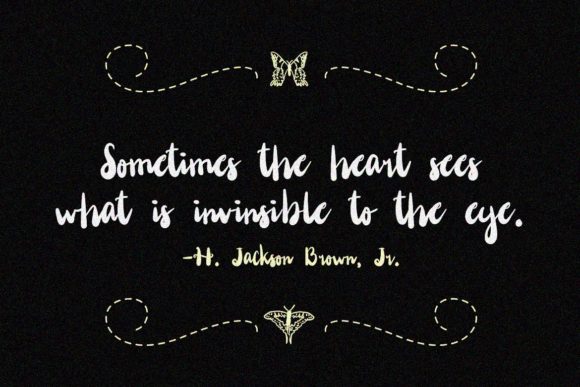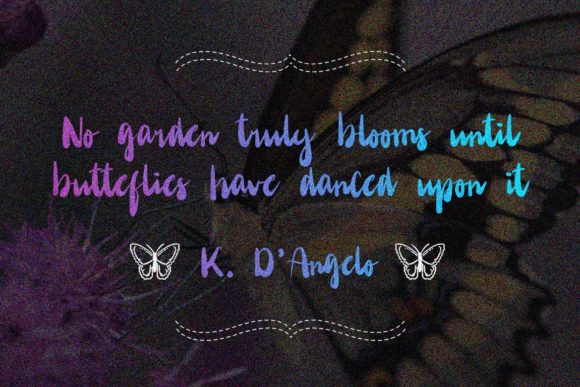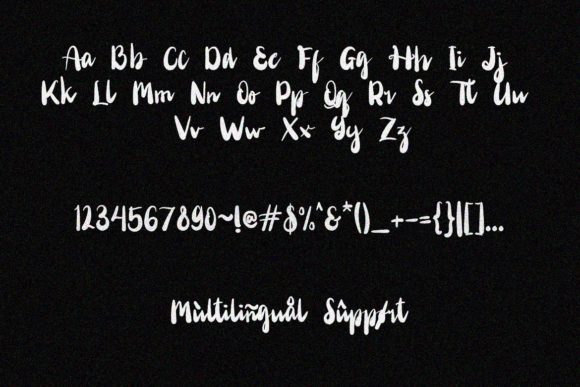
Introduction to Mariposha Font
Have you ever been working on a creative project, and suddenly, you need a font that captures the whimsy and playfulness of your design? For me, that moment happened when I stumbled upon the Mariposha Font – a delightful script that brings a smile to your face with each letter.
As a designer, I know how essential it is to have a diverse range of fonts at your disposal. The Mariposha Font is an excellent addition to any design resource, offering a high-quality, free download that’s perfect for projects requiring a touch of elegance and charm. Whether you’re working on a graphic design project, crafting a logo, or creating a digital illustration, this font is sure to elevate your design and leave a lasting impression.
With its transparent background and incredibly cute design, the Mariposha Font is an absolute must-have for any designer looking to add a personal touch to their creative projects.
Key Features of Mariposha Font
- High-quality design: Mariposha Font is a beautifully crafted font suitable for creative projects that require a touch of elegance and sophistication.
- Transparent background: This font features a transparent background, making it easy to combine with other design elements and create visually appealing compositions.
- Perfect for creative projects: With its unique and creative design, Mariposha Font is ideal for use in design projects that require a touch of whimsy and imagination.
Honest Review: Mariposha Font
I recently came across the Mariposha Font and was immediately drawn to its unique design. The font’s high quality and detailed strokes make it a great resource for any creative project.
Here are some of the things that work well about the Mariposha Font:
- High-quality design with detailed strokes
- Perfect for creative projects that require a unique touch
However, I did notice a few limitations with the Mariposha Font:
- The font may not be suitable for large blocks of text, as it can be quite ornate and overwhelming
- Some users may find the font’s unique design to be distracting or difficult to read
Overall, I think the Mariposha Font is a great addition to any designer’s toolkit. Its high-quality design and free download make it a valuable resource for creative projects. While it may have some limitations, I think it’s definitely worth checking out.
Tips for Getting the Most Out of Mariposha Font
To get the most out of Mariposha Font, use it on a transparent background to create a clean and minimalist design. Experiment with different font sizes and colors to create a visually appealing design resource.
Mariposha Font is a versatile design resource that can be used in various creative projects, such as:
- Infographics
- Brochures
- Posters
- Business cards